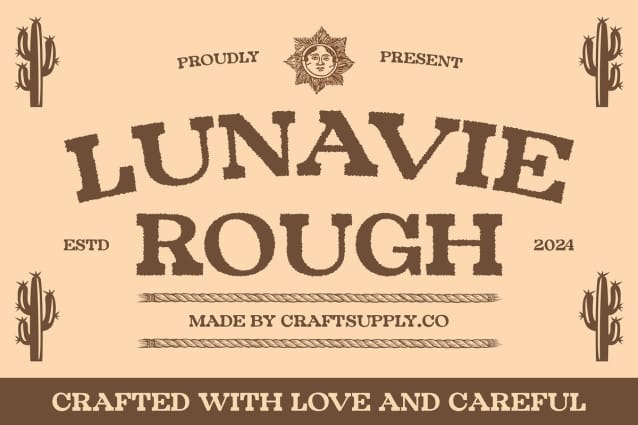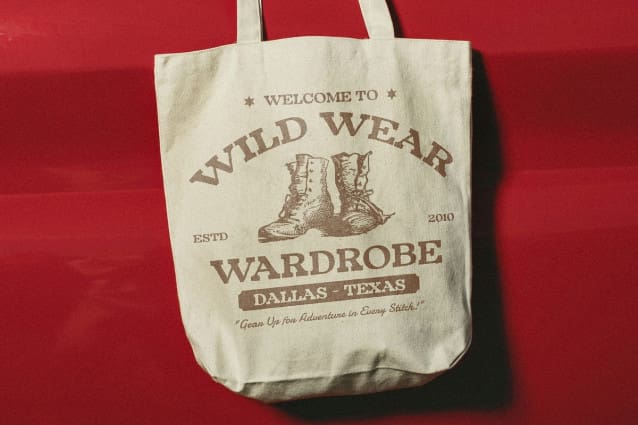
Lunavie Rough Font
Lunavie Rough Font is a bold serif font that captures attention with its funky and retro style, enhanced by a distinctive rough effect. The bold design ensures high visibility and clear readability, making it an excellent choice for impactful designs. The funky, retro elements evoke a sense of nostalgia and playful fun, transporting viewers back to a bygone era of vibrant aesthetics. The rough effect introduces a rugged, imperfect texture, adding a layer of artistic character that sets the font apart.
Ideal for Vintage-Inspired and Creative Design Projects This font excels in designs that aim to make a bold statement with a vintage twist. Its combination of bold serifs, playful retro styling, and textured finish makes it perfect for creative branding, eye-catching event posters, and bold promotional materials. Whether you’re designing for a lively event, developing a unique brand identity, or crafting striking graphics, Lunavie Rough delivers a distinctive and engaging look that stands out with both flair and sophistication.
Versatile Design for a Memorable and Edgy Impression Lunavie Rough is ideal for those seeking a font that merges classic serif elegance with a retro edge and artistic texture. Its unique blend of boldness, nostalgia, and rugged charm makes it a versatile choice for a wide range of design applications.